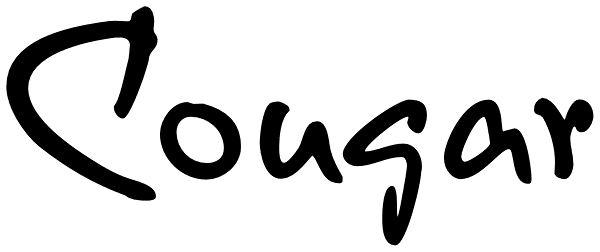
Cougar
It is still a mystery to us why Martin Wilke's 1968 Konzept design was ignored by the digital age. It certainly has the elements of attractive yet realistic handwriting, as well as a few very distinctive letters that make it very unique in its...